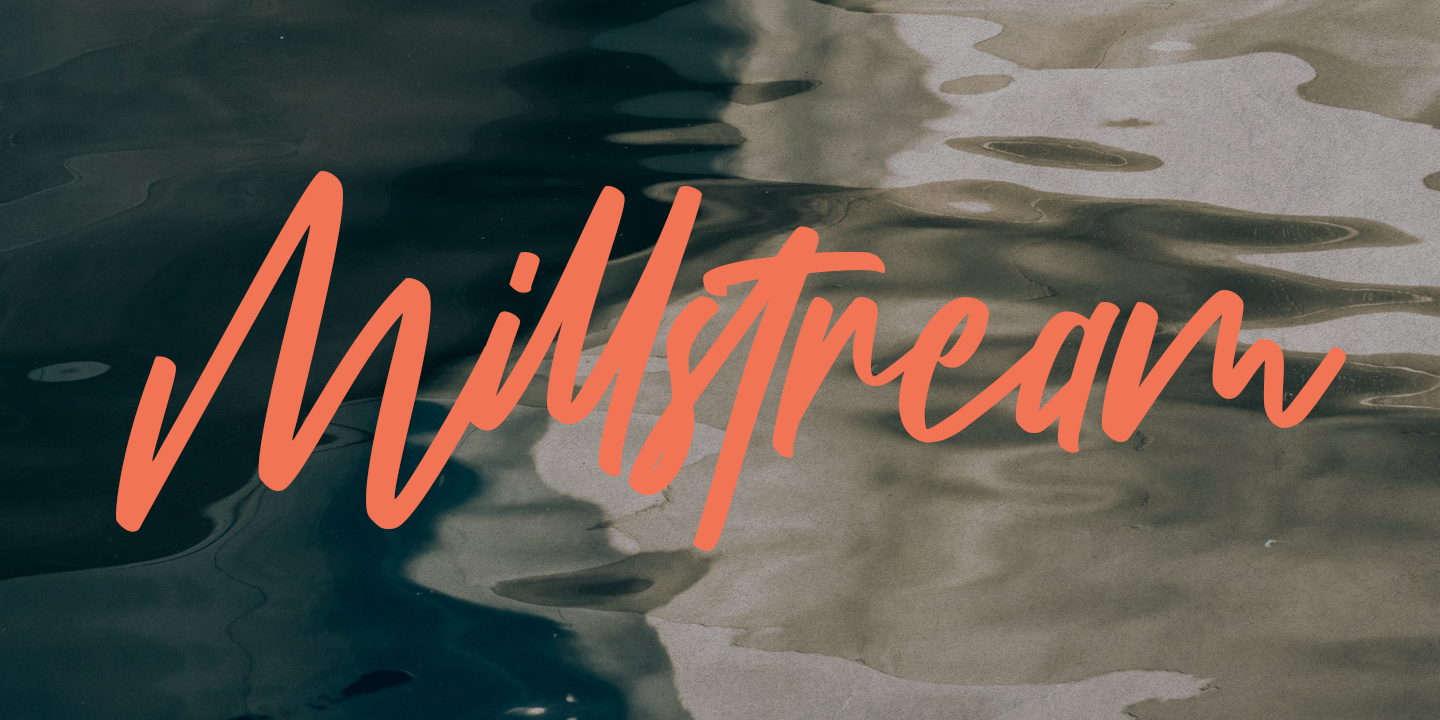
Millstream Font is perfect for rustic mill branding, countryside heritage materials, water mill signage, traditional craft designs, rural tourism campaigns, artisanal flour packaging, historical preservation graphics, and flowing stream typography.
What makes Millstream Font exciting is its flowing rustic character that embodies mill heritage and stream tranquility through gentle letterforms and waterway appeal. This charming typeface features mill construction, stream details, and rustic personality that captures the essence of traditional water mills and countryside streams, making it ideal for projects seeking to communicate rural heritage, mill tradition, and natural flow with authentic mill appeal and countryside sophistication.
The Millstream Font family includes Light, Regular, and Bold weights, each maintaining the characteristic flowing grace and mill appeal that define this distinctive typeface's rustic personality and heritage sophistication.
Millstream Font Free Download offers designers access to a typeface that perfectly captures the essence of mill heritage and stream tranquility. This flowing font brings authentic rural aesthetics to contemporary projects, making it essential for heritage mills, countryside tourism brands, and artisanal companies targeting audiences who appreciate mill traditions and rural craftsmanship. The font's mill construction and stream details ensure immediate recognition of heritage and tranquility while its distinctive character creates peaceful connections among individuals seeking countryside experiences and mill authenticity. Whether designing mill heritage materials, countryside tourism campaigns, or artisanal craft communications, this font delivers the mill authenticity and rural sophistication that heritage-loving audiences expect. Its mill foundation and stream symbolism make it indispensable for projects celebrating mill culture, countryside heritage, and the gentle power of flowing streams, ensuring communications resonate with audiences who value the mill tradition, rural tranquility, and heritage craftsmanship that define authentic mill experiences and countryside culture across diverse heritage and rural applications.